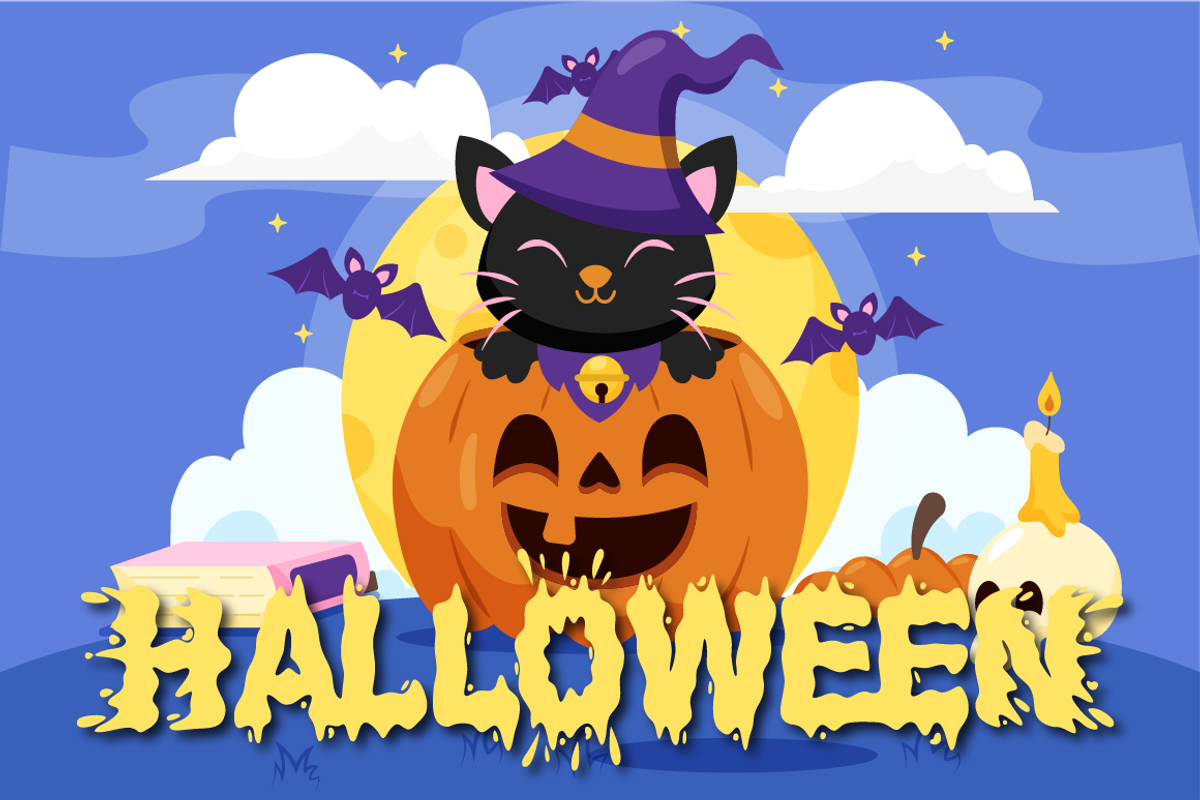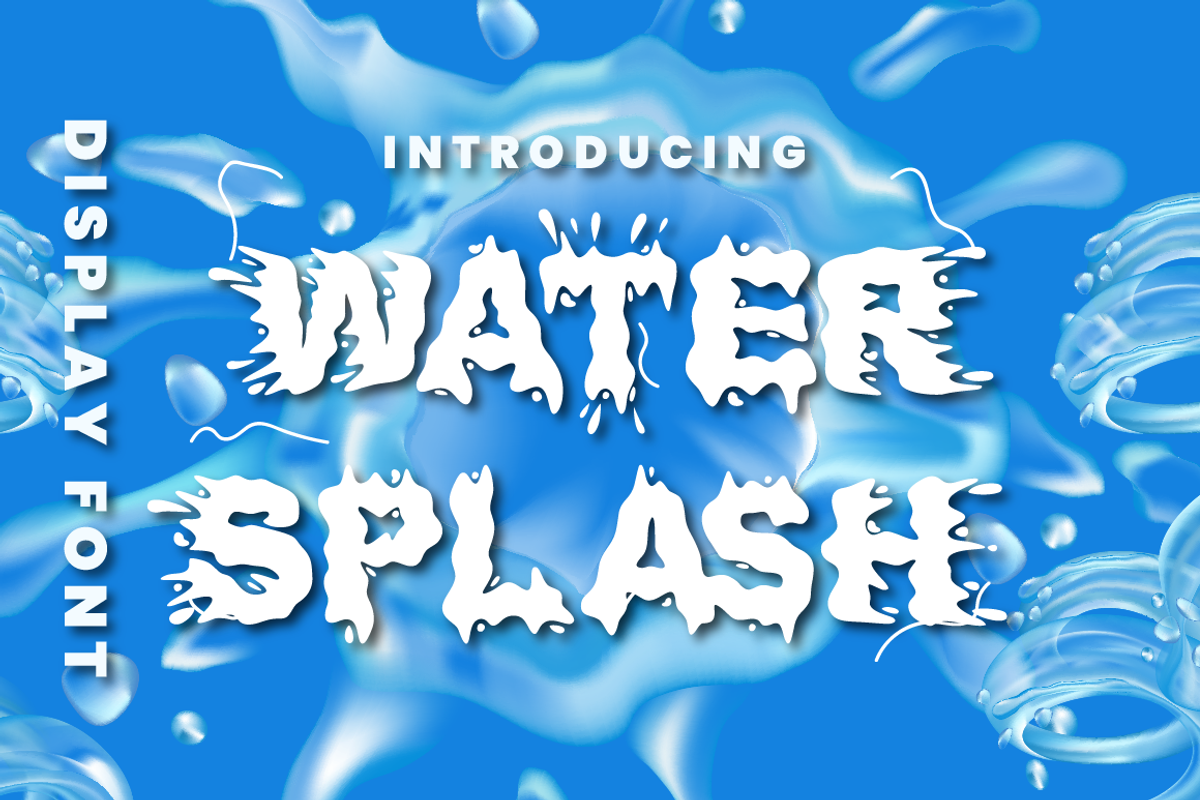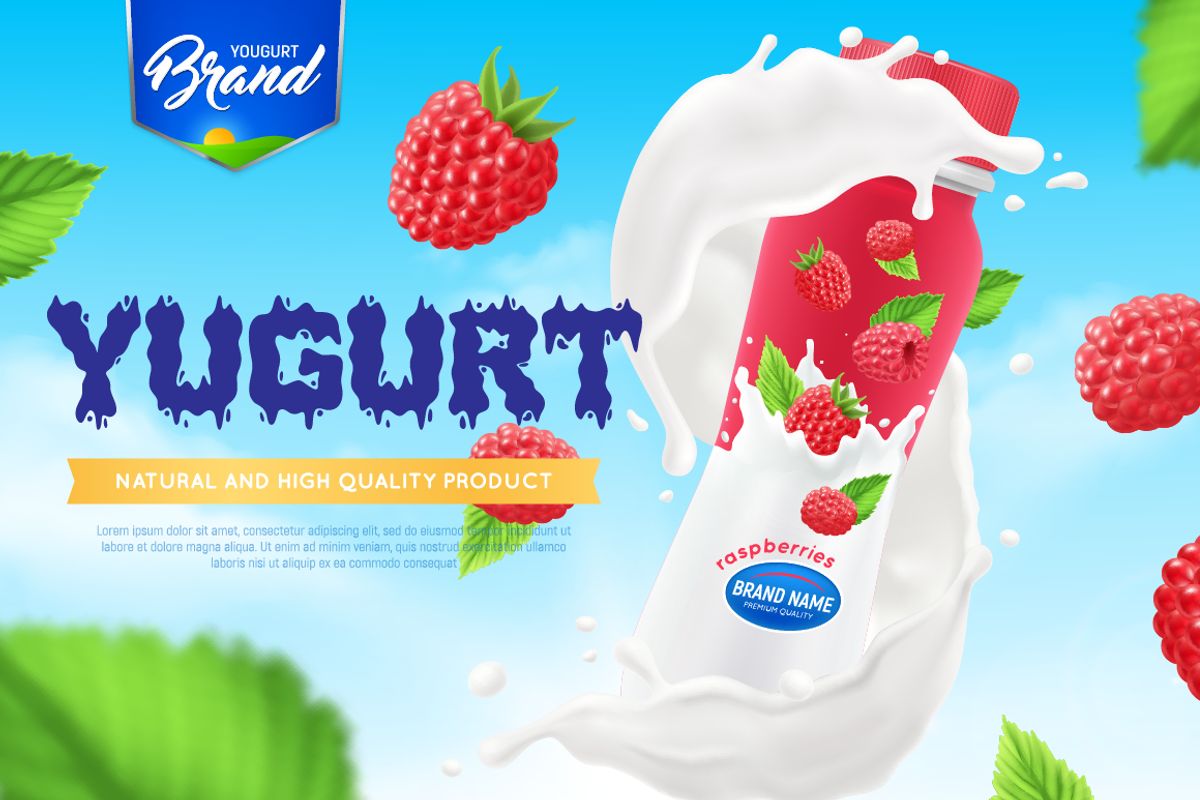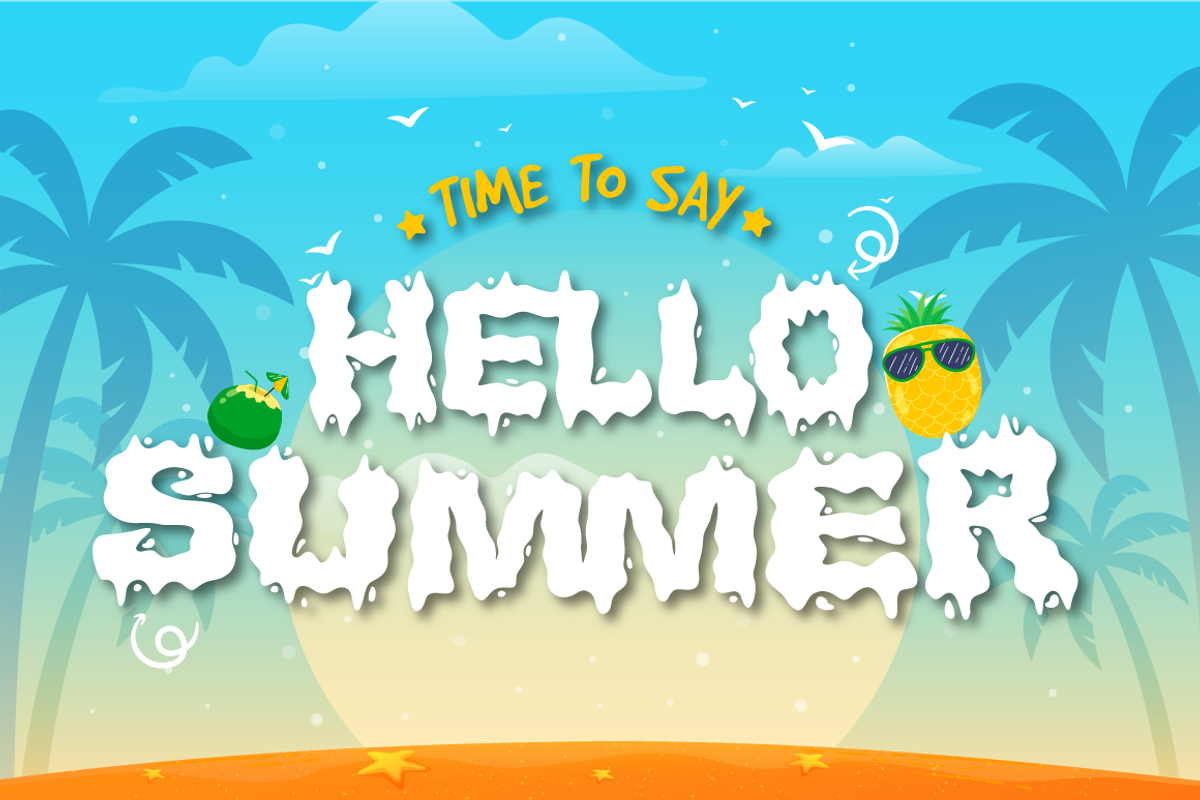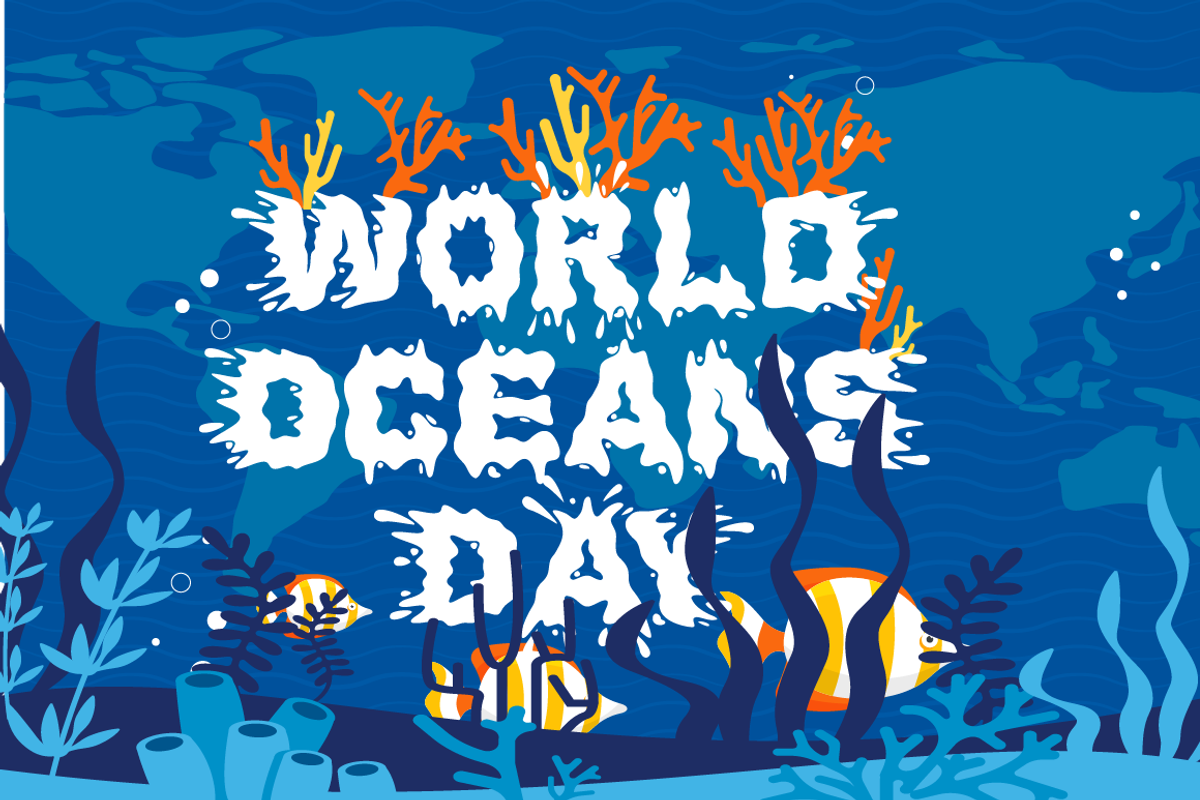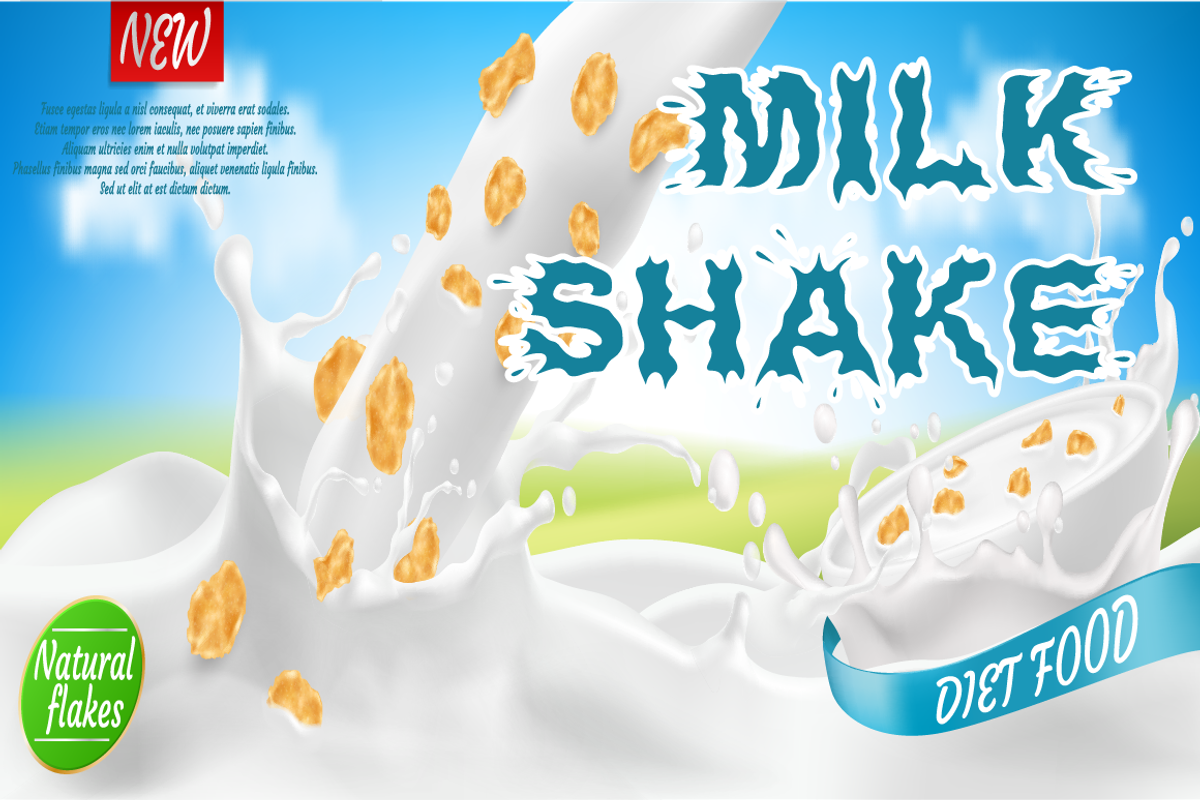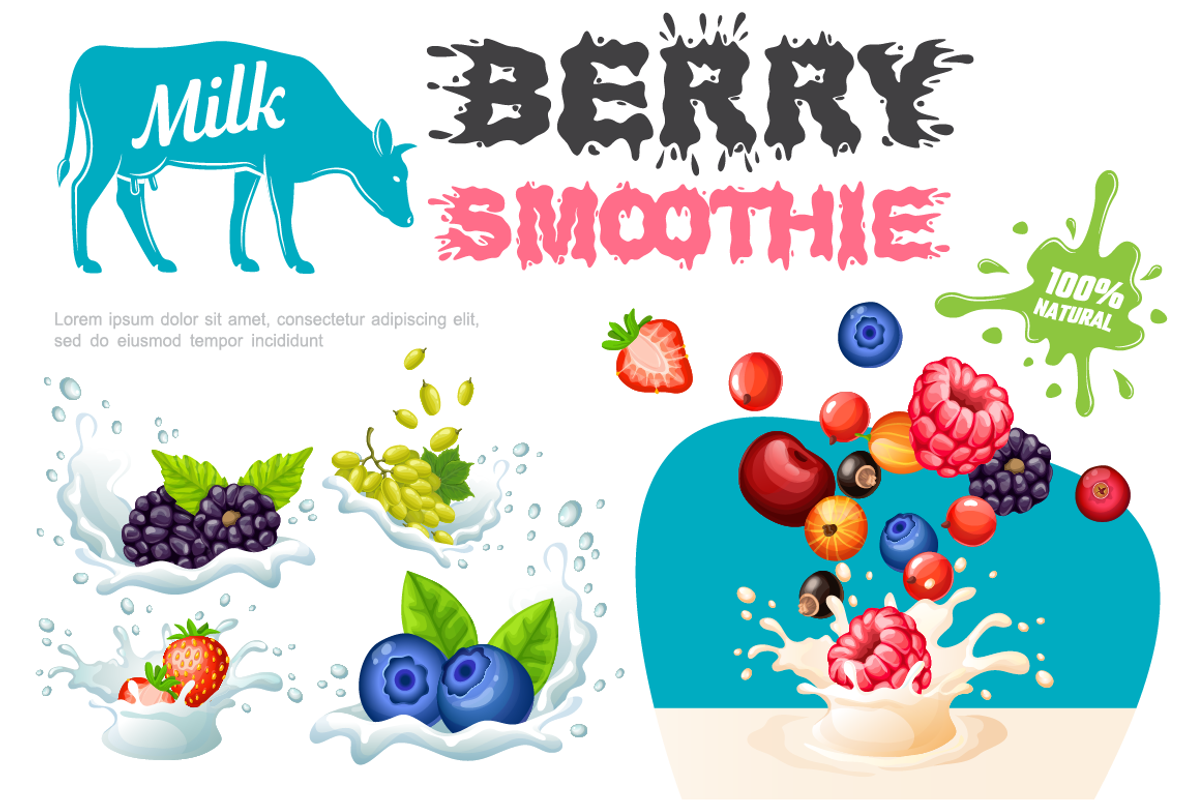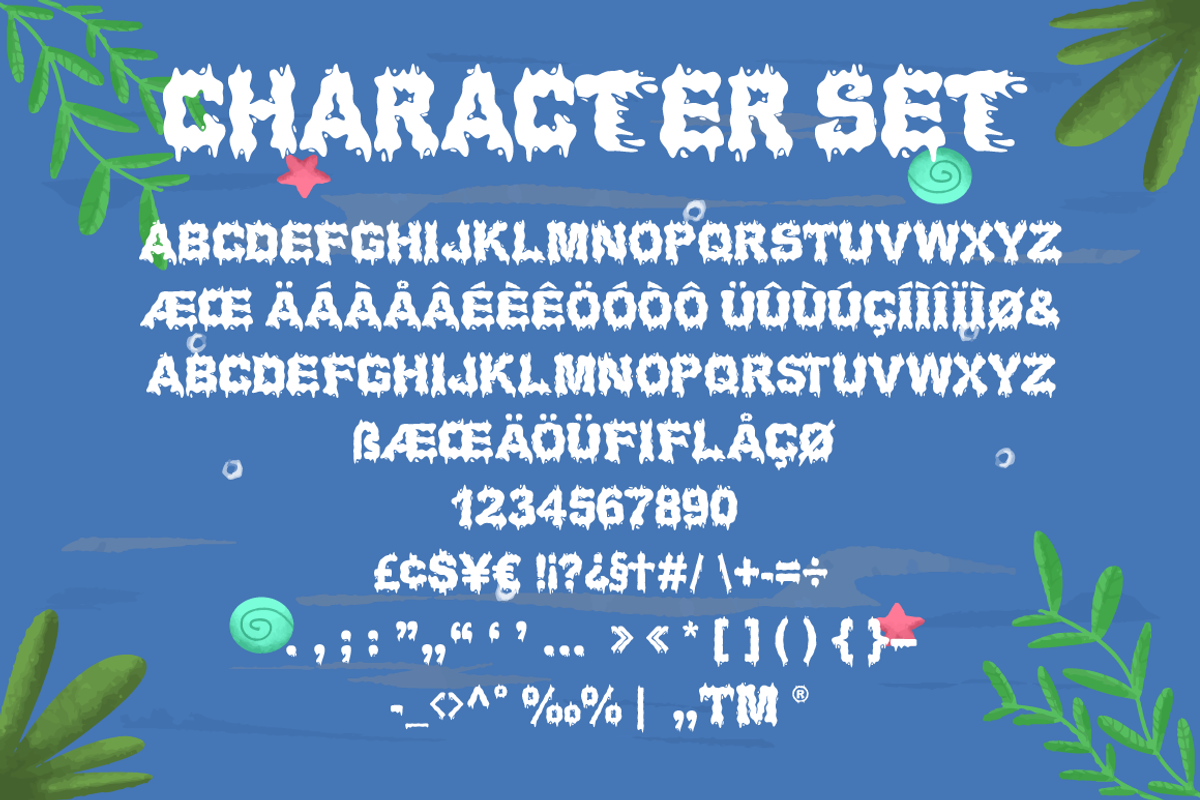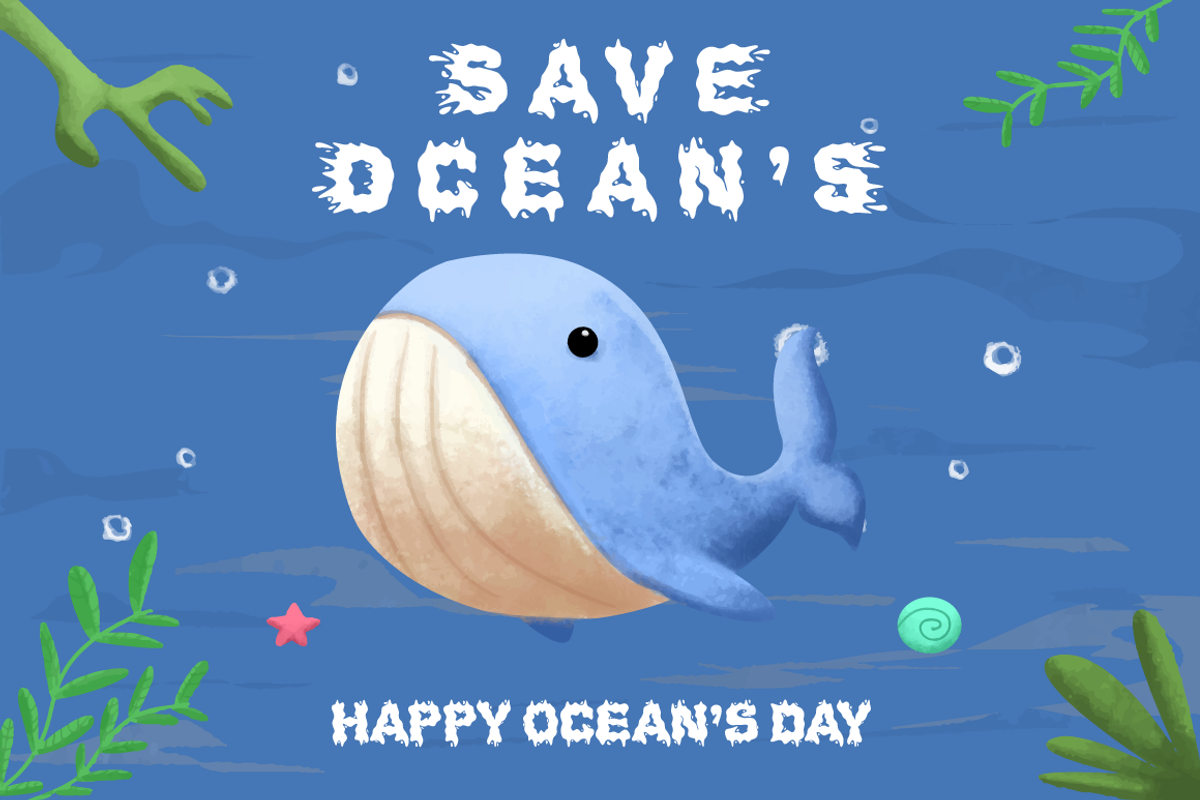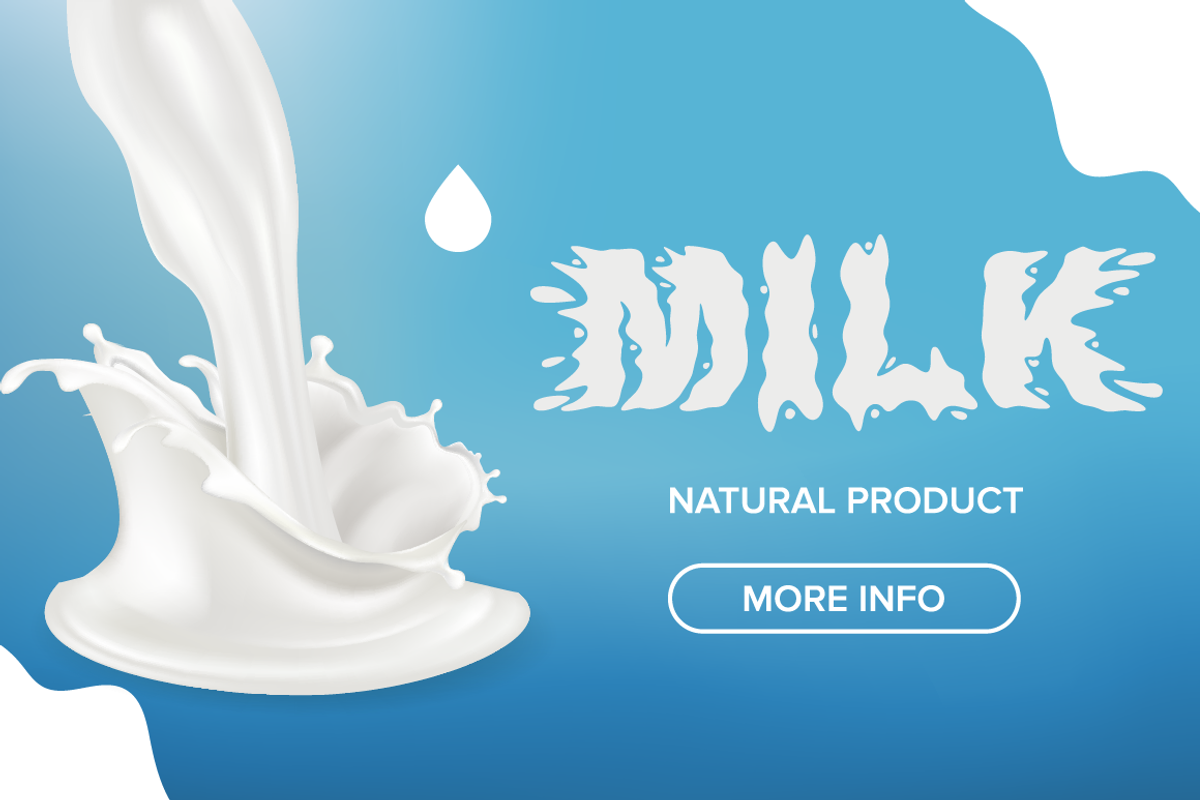
Water Splash - Creative Display Font
Water Splash
Water Splash is a unique display font. This font is inspired by the water splash shape. There are 3 directions for the splash water (direction to the left, up and down and to the right), and they are alternate from this lowercase font. With these variations, it will make it easier for you to create creativity for your project.